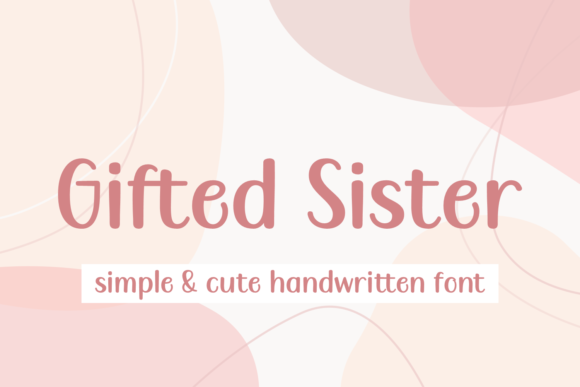
Step into a world of cinematic grandeur with the Gifted Sister font, a masterpiece designed to ignite the reels of your creativity. This display font bursts onto the scene, ready to transform your designs into captivating productions.
Indulge in the splendor of this font's intricate details, meticulously crafted to evoke the essence of the silver screen. Each stroke and curve dances with grace, carrying the weight of a thousand stories.
With Gifted Sister, your posters will command attention, your thank you cards will leave an enduring impression, and your quotes will resonate with an artistic flair that speaks to the soul.
Unleash your creativity and watch as your designs take center stage. From logos that demand remembrance to business cards that leave a lasting impact, Gifted Sister is your trusted companion in the realm of visual storytelling.
But its versatility doesn't end there. This font is a virtuoso performer, ready to elevate every project with its captivating presence. Greeting cards adorned with Gifted Sister's charm will carry your heartfelt messages with an added touch of elegance.
Whether you're a seasoned designer or a creative spirit just starting your journey, Gifted Sister is your key to unlocking a world of typographic wonders. Its user-friendly nature makes it accessible to all, inviting you to weave your own cinematic tales through the art of design.
So, don't let your designs fade into the background. Embrace the cinematic allure of Gifted Sister and watch as your creations captivate audiences, leaving an enduring legacy of visual brilliance.